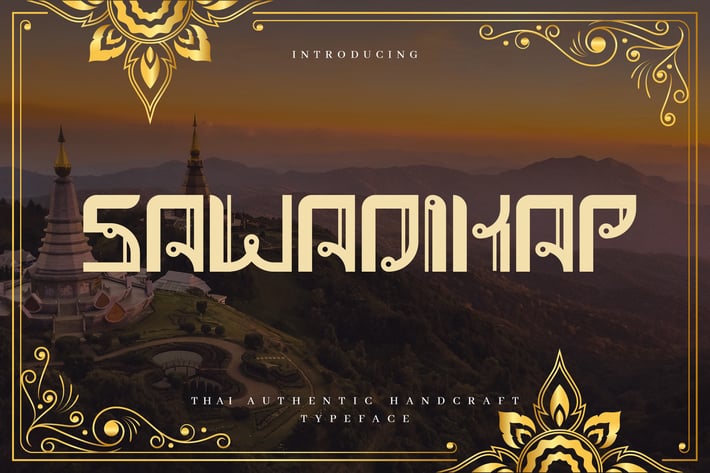
Sawadikap - Authentic Thai Typeface
Introducing Sawadikap font. Are you looking for a bold and solid display font that has authentic thailand traditional feeling? We can help! Try to download our sawadikap font. The font is suitable to use for many occasion such as traveling, poetry, movie title, book title, brand identity, and many more. We provide you with solid and outline version :)